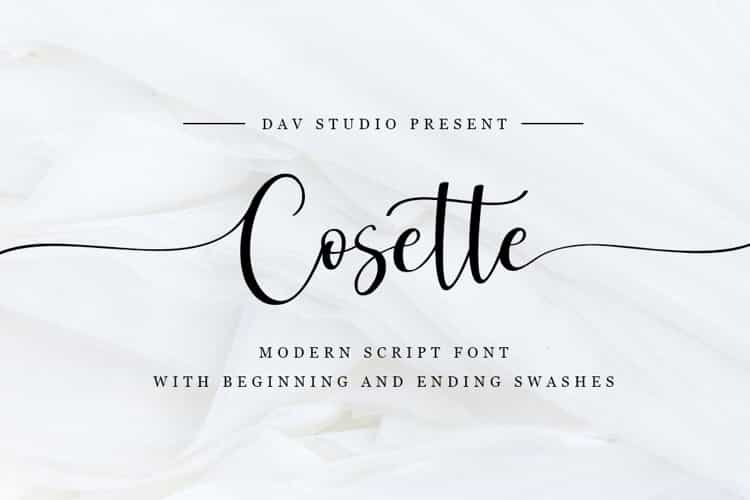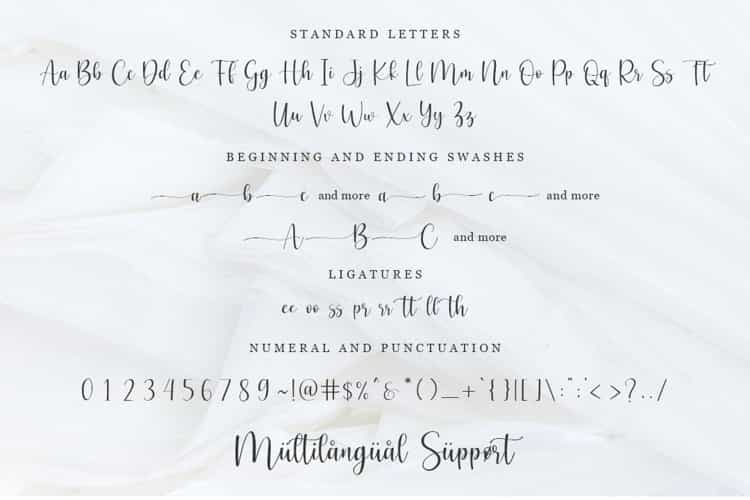
Discover Cosette Calligraphy Script Font, part of the Calligraphy Script collection—a versatile and unique font perfect for adding a personal touch to your projects. Download it for free and enjoy crafting designs with style, from invitations to social media posts. This font is available exclusively for personal use, giving you the freedom to create without limits. Unlock your creativity with Cosette Calligraphy Script Font today!
Cosette is a new script font with Swashes at the beginning and at the end. It also supports text in multiple languages, punctuation and numerals and also ligatures. Suitable for wedding invitations, business and logos, mockups, and even for do it yourself projects.